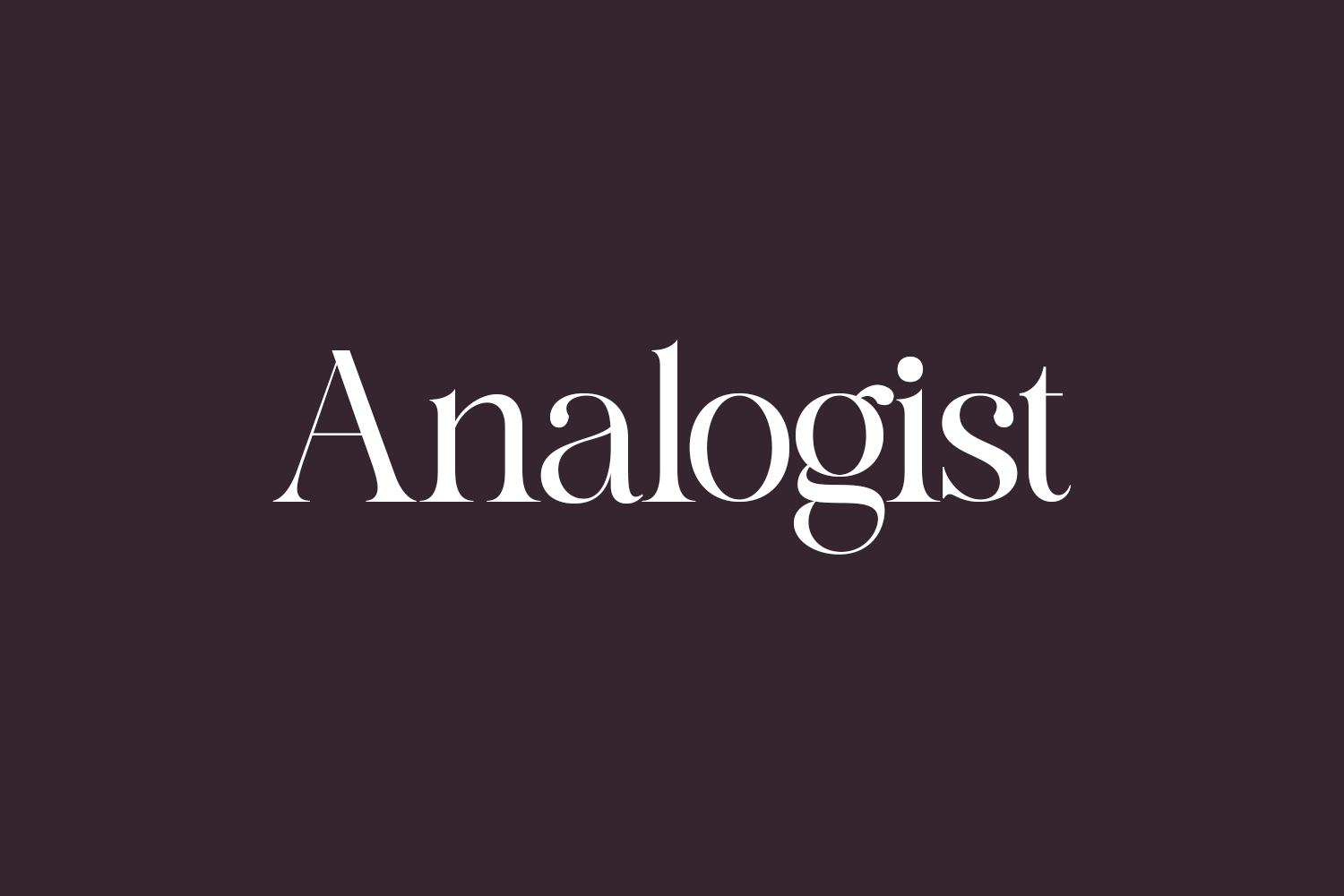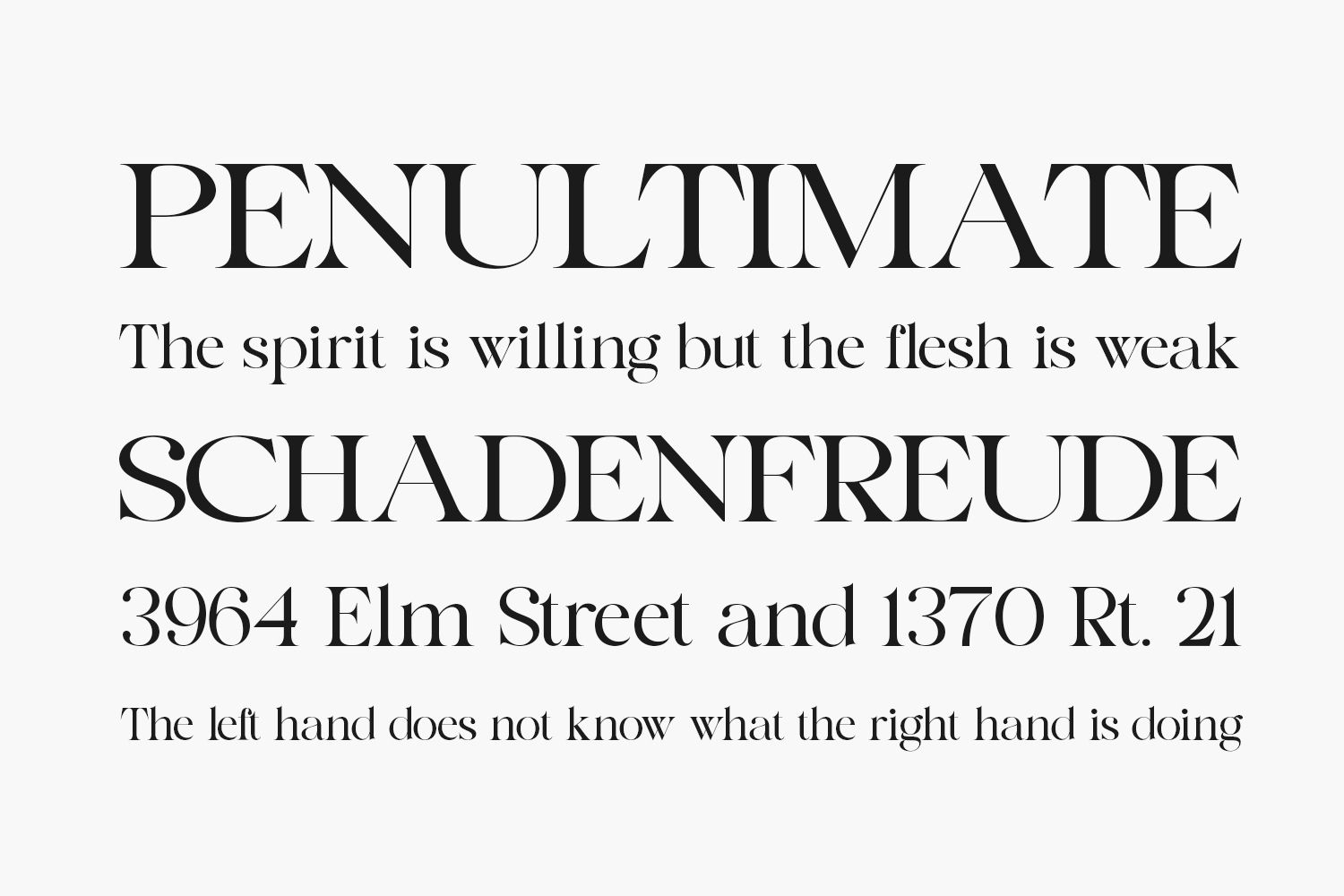
Introducing Analogist Free Font, a contemporary serif font that exudes uniqueness. This versatile font is the perfect choice for an array of design applications, including logos, fashion and editorial design headers, branding projects, packaging, magazine titles, advertisements, T-shirts, postcards, valentines, posters, invitations, weddings, social media posts, magazines, book covers, and beyond. Unleash its potential on all your creative endeavors. Analogist Free Font is free for personal use only. Please purchase the full version for commercial use.
Designed by Gatype